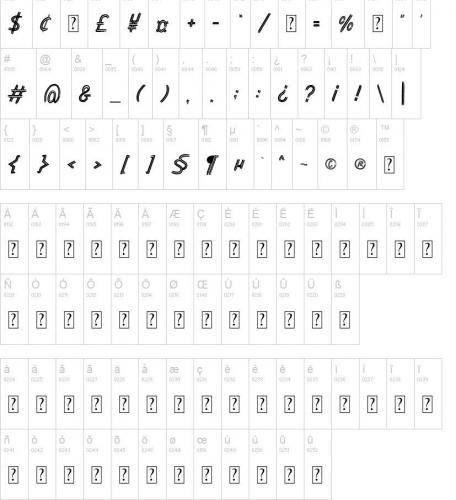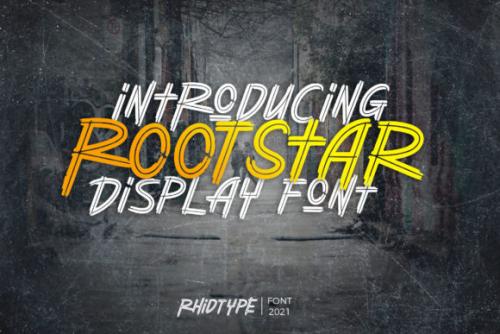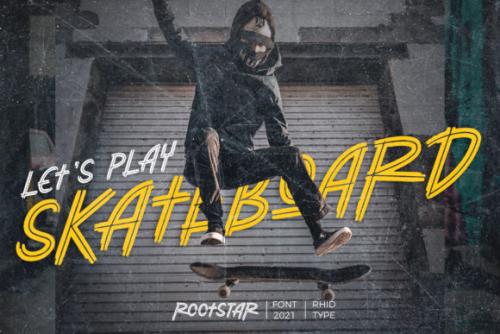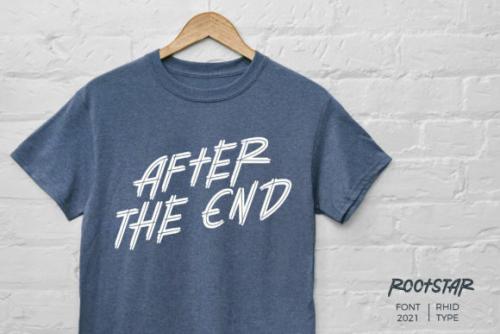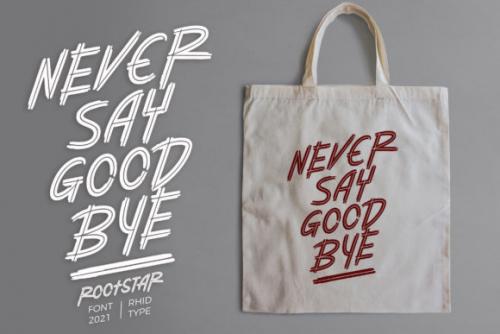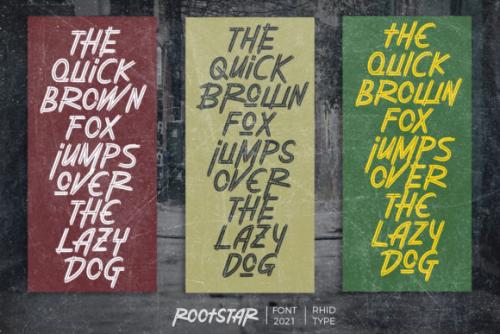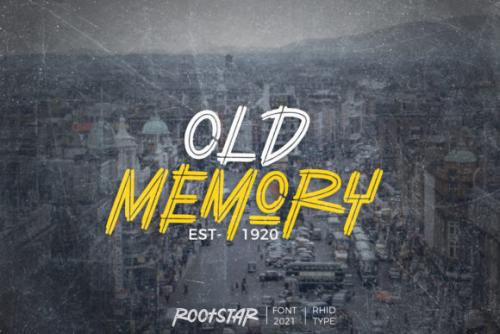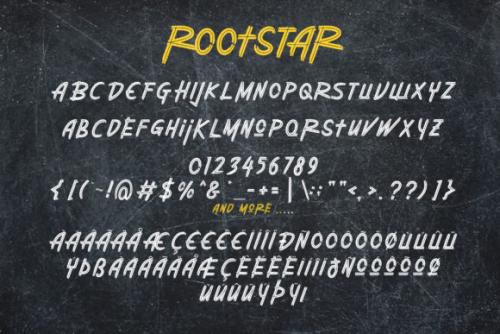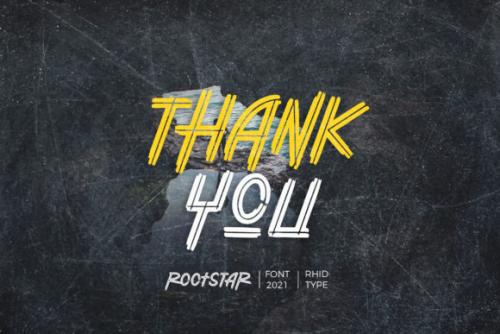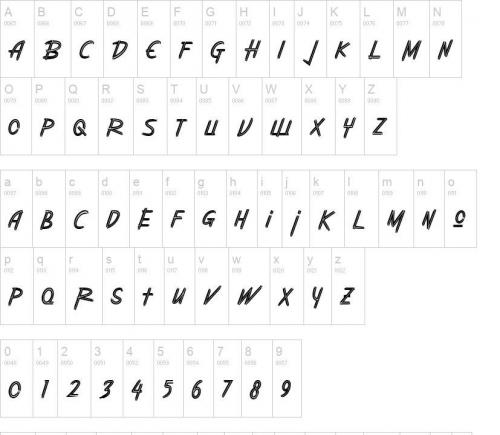
Rootstar is a fun and friendly display font. Clean and a little bit quirky, this font is the perfect fit for all of your logos, branding, social media, and crafty DIY projects.